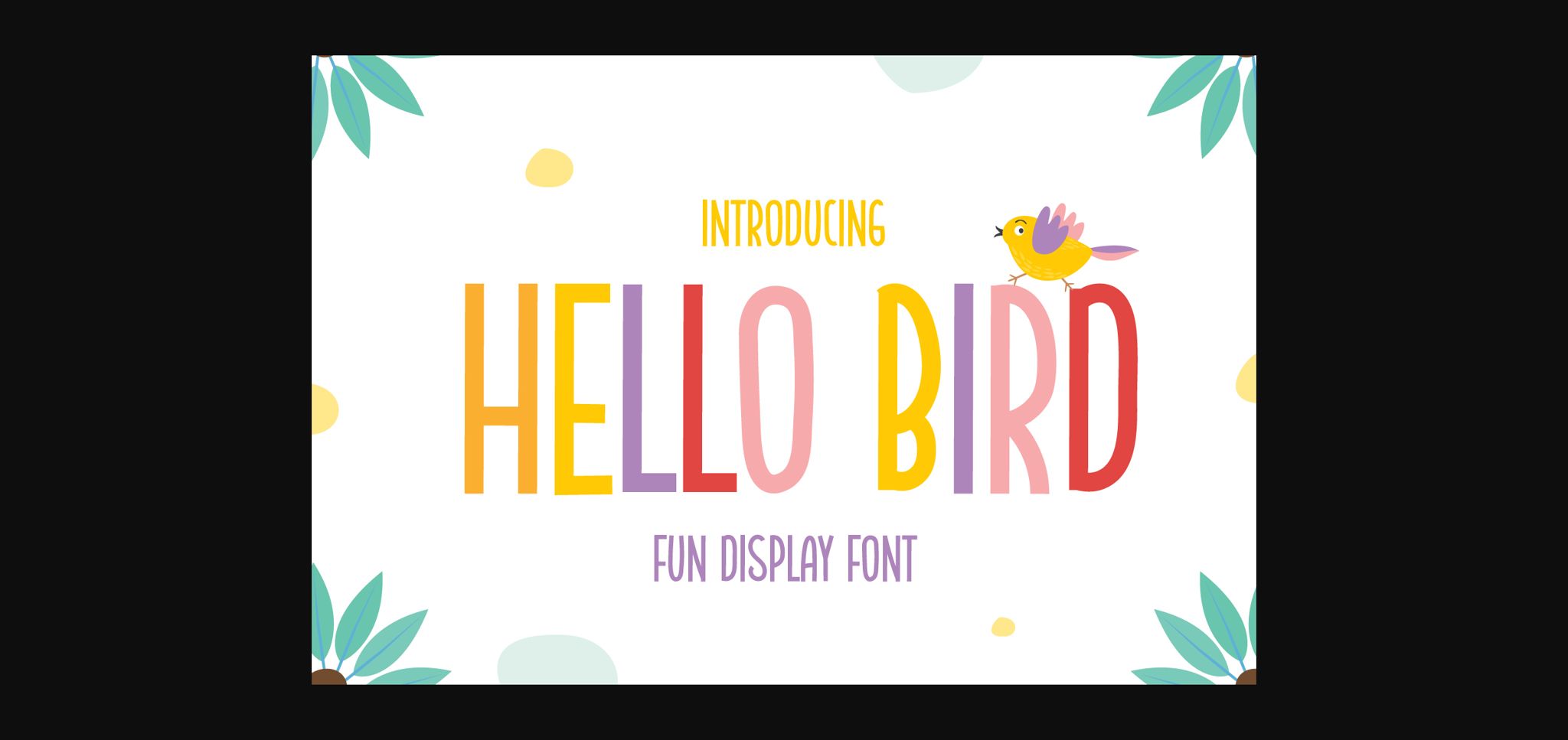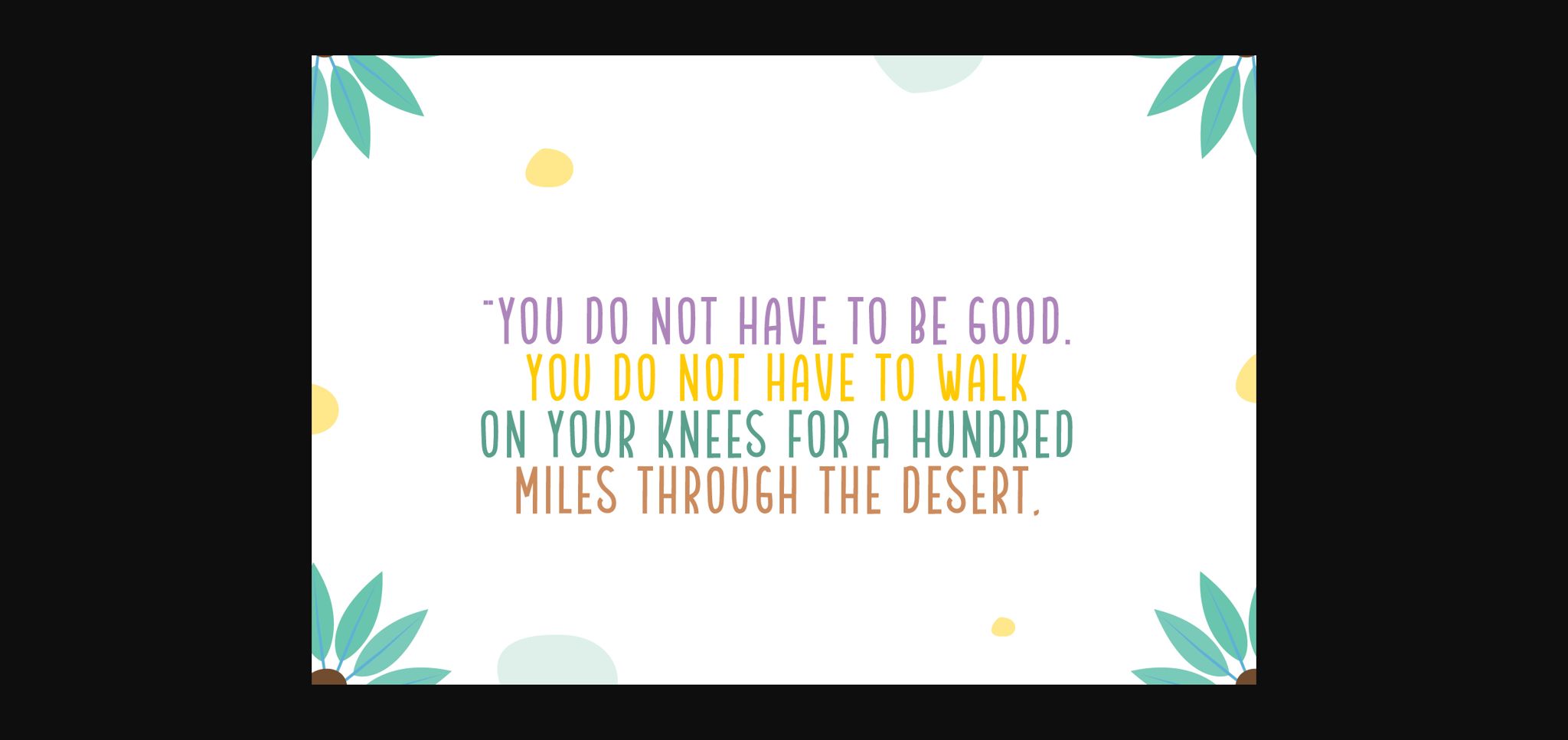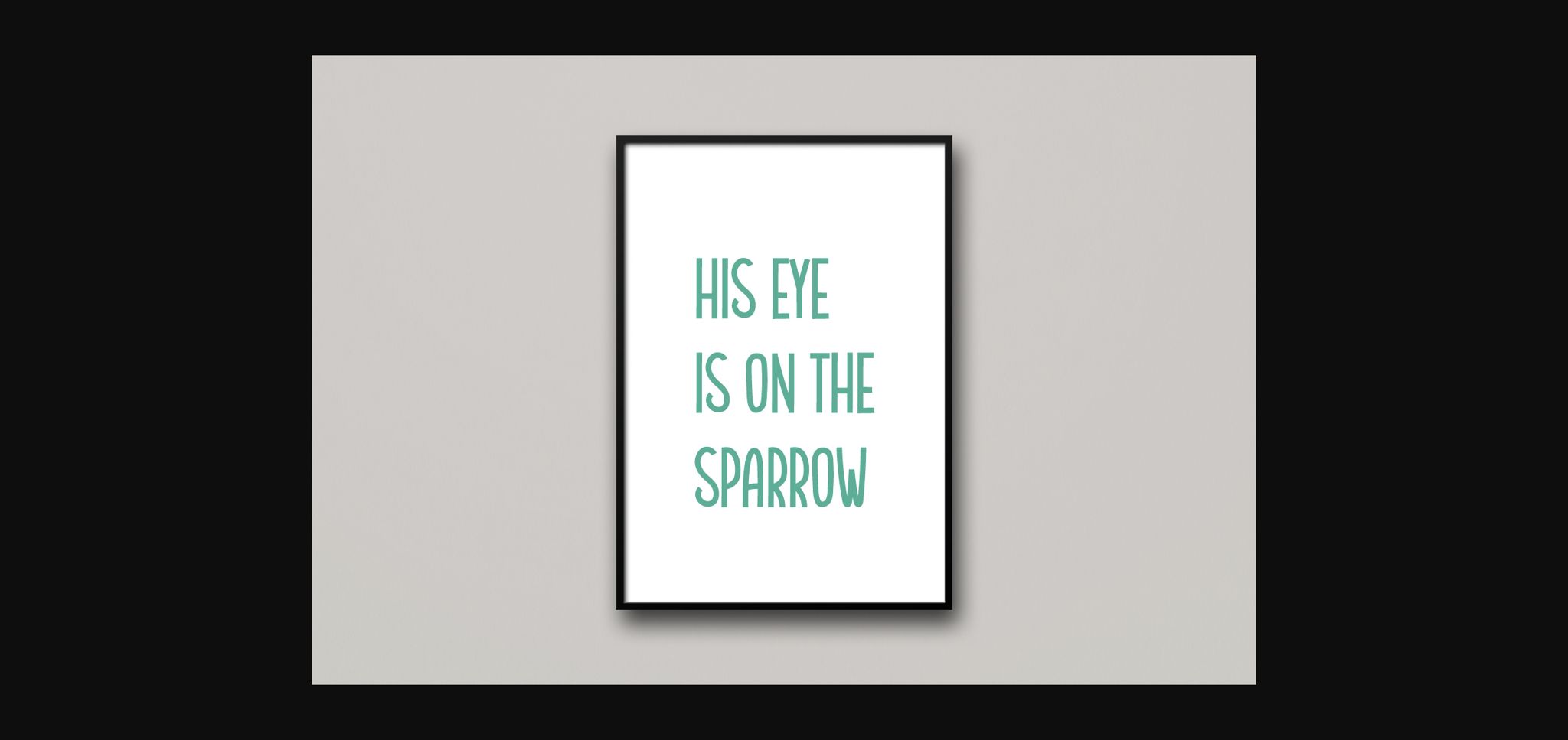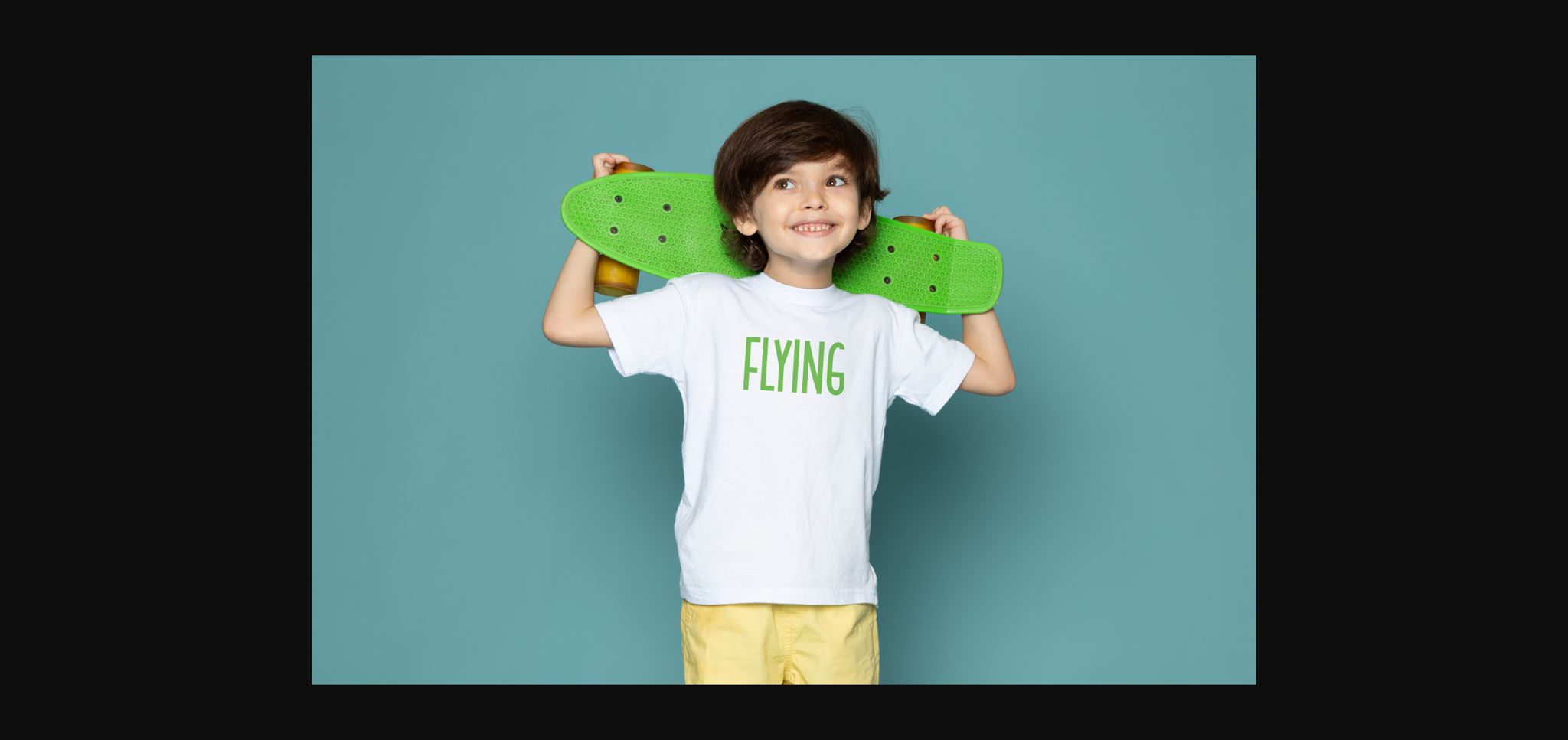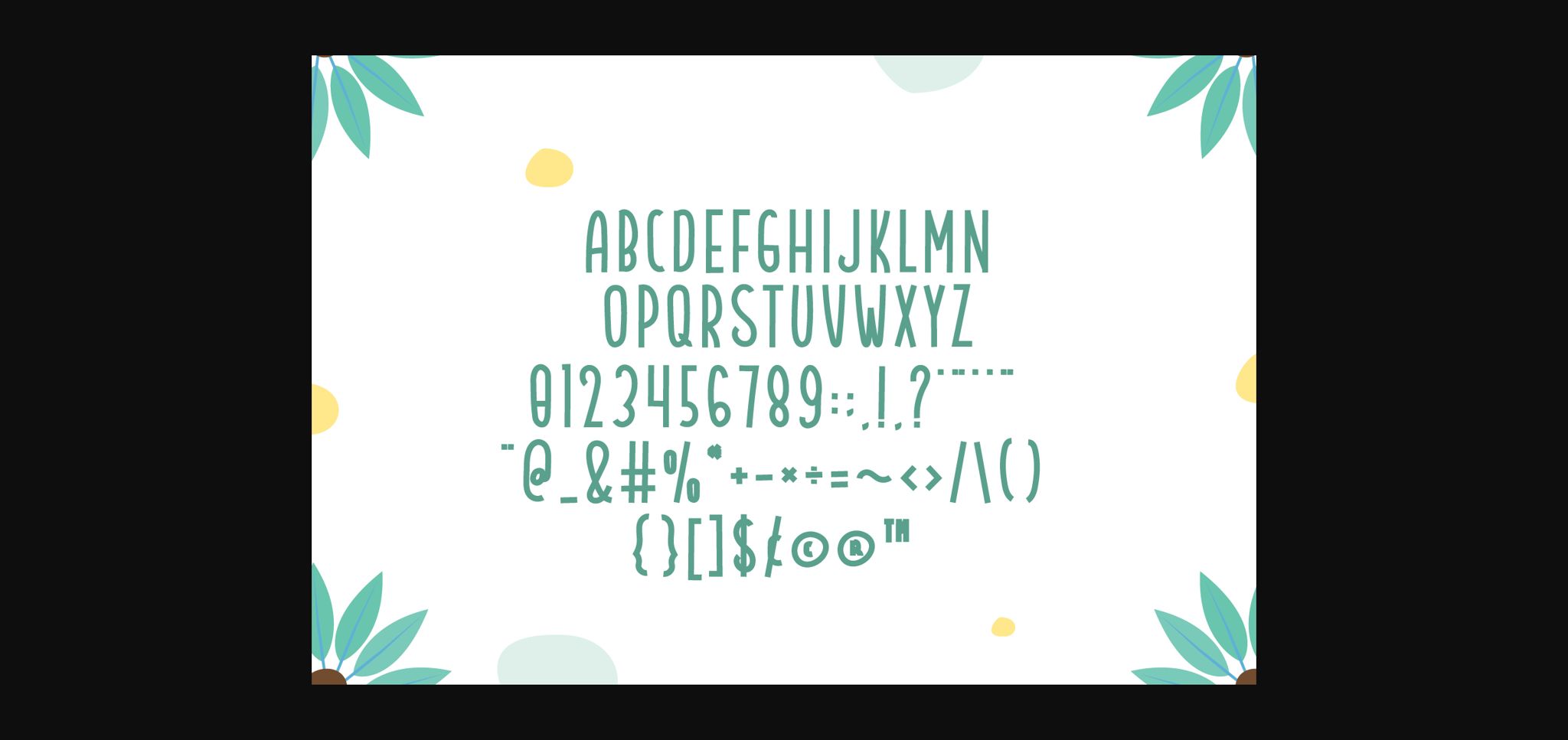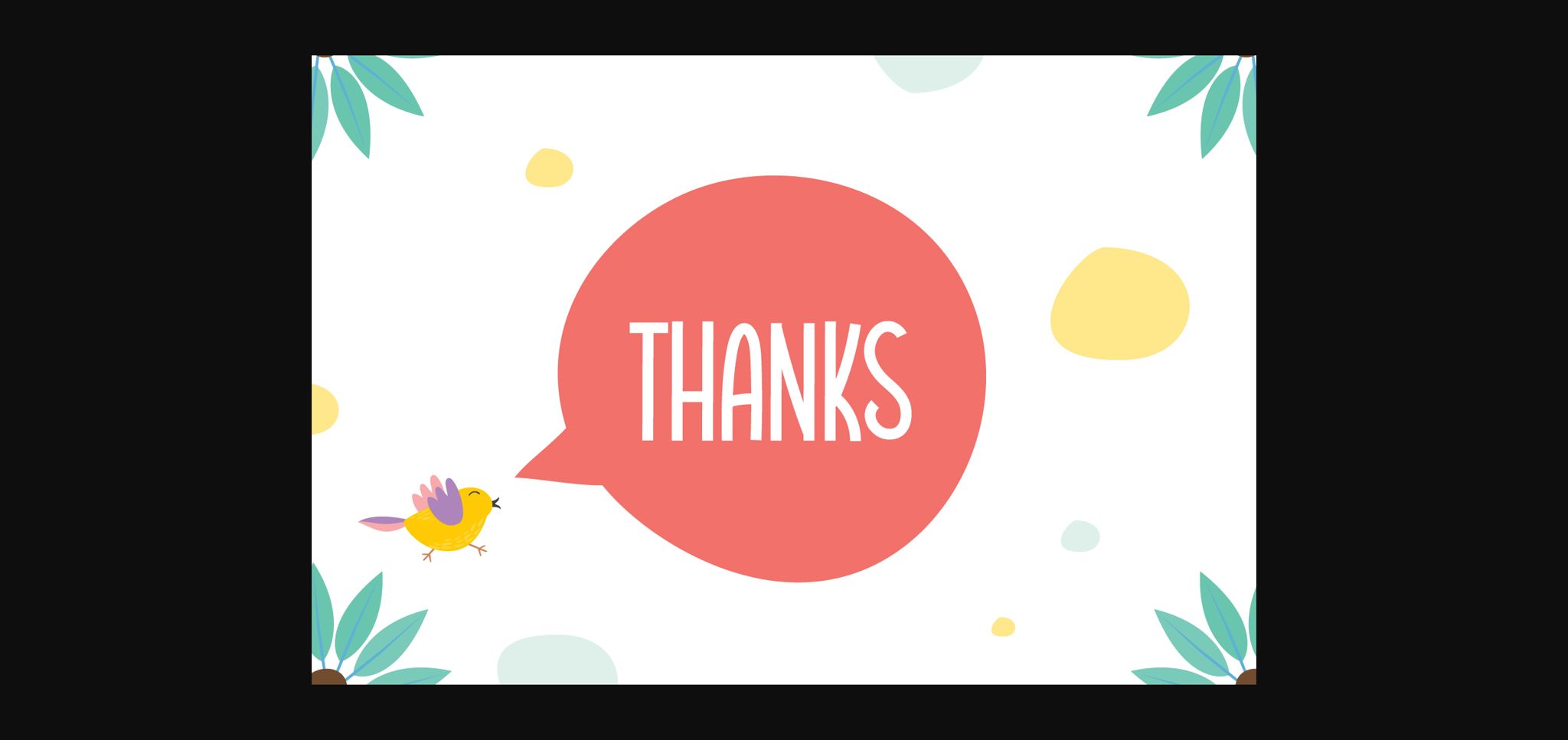
Hello Bird Font
About Hello Bird Font
Hello Bird is an all-caps, fun, and quirky Sans Serif Font that will look great in any design. Its casual charm makes it look very down to earth, easy to read, and, in the end, very versatile. Add this beautiful display font to your every creative idea.
This font is perfect for quotes, shirt designs, websites, branding, children’s designs, blogs, logos, invitations, and more!